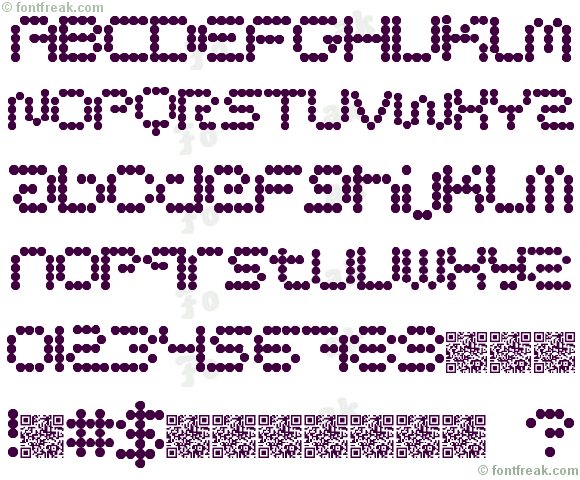
CirclePixels
CirclePixels by Xerographer Fonts is a captivating display font that exudes a unique blend of modernity and playfulness. Designed in 2013, this freeware typeface stands out with its distinctive circular pixelated structure. Each character is crafted with uniform stroke weights, creating a harmonious visual rhythm that is both engaging and easy to read. The lack of sharp contrasts gives the font a softer, approachable appearance, making it ideal for various design applications.
The circular forms and spaced-out characters of CirclePixels lend themselves perfectly to a variety of creative uses. This font is particularly well-suited for eye-catching movie posters, where its bold, playful style can draw attention and set the tone for the film. Additionally, it makes a memorable choice for restaurant menus, where its unique look can enhance the dining experience and add an element of fun. CirclePixels is also a fantastic option for branding projects aimed at younger audiences or tech startups, where a modern, approachable aesthetic is desired. Furthermore, its whimsical nature makes it an excellent fit for children's book covers or educational materials, where capturing the attention of young readers is essential.
Targeting graphic designers, small business owners, and content creators, CirclePixels offers a fresh alternative to conventional fonts, inviting creativity and innovation. Its versatility allows it to be adapted for various projects while maintaining a strong visual identity.
In conclusion, CirclePixels font free download is a standout choice for anyone looking to infuse their designs with a playful yet modern touch. Its unique pixelated style not only enhances visual appeal but also gives a contemporary edge to any project, ensuring your work remains memorable and impactful.